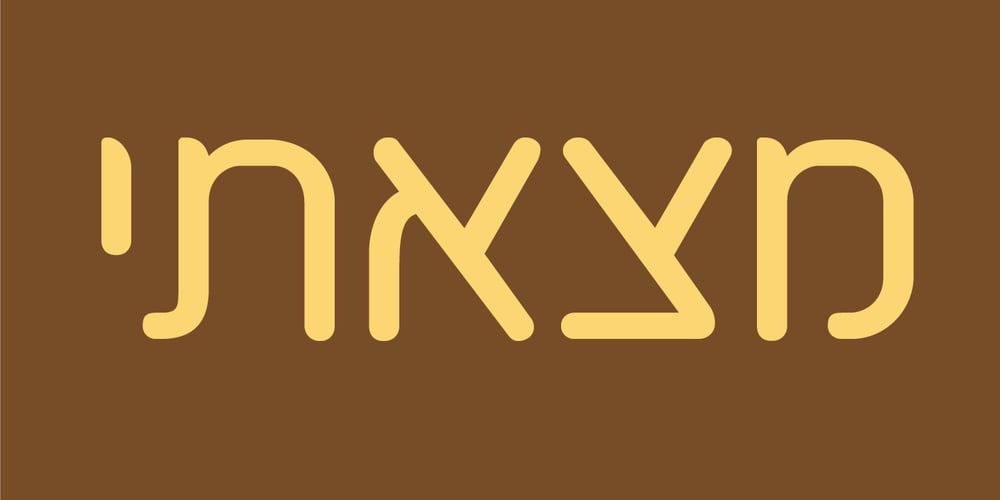
Alifut MF Font Family was designed by Zvika Rosenberg and published by Masterfont. Alifut MF contains 8 styles and family package options. A practical font family with 4 weights for all your day to day design needs: headlines, body text, signage etc.High legibility at small sizes. An extended sans serif typeface with rounded endings that provides a unique softness appearance without losing legibility.The Pro version is an excellent support for Niqqud (Vowels). All marks are programmed to fit each glyph’s shape and width. Best used with apps that support right to left Hebrew text, like Adobe InDesign CC or MS Word.